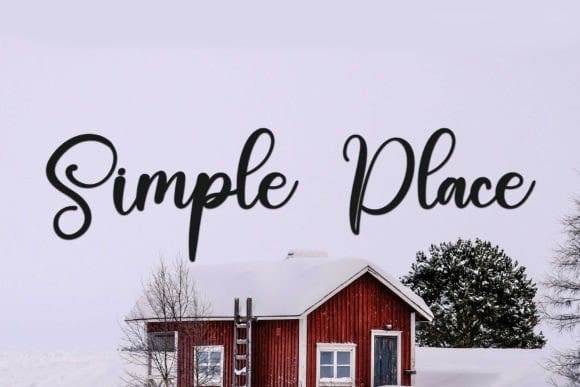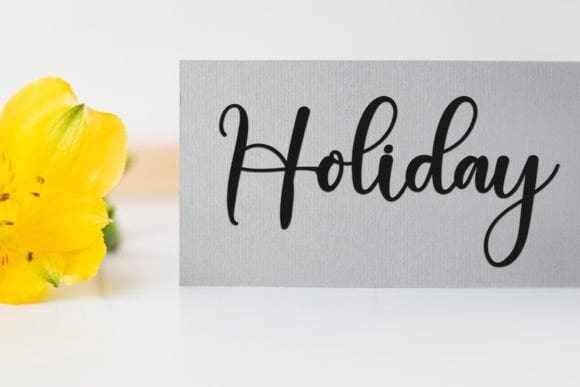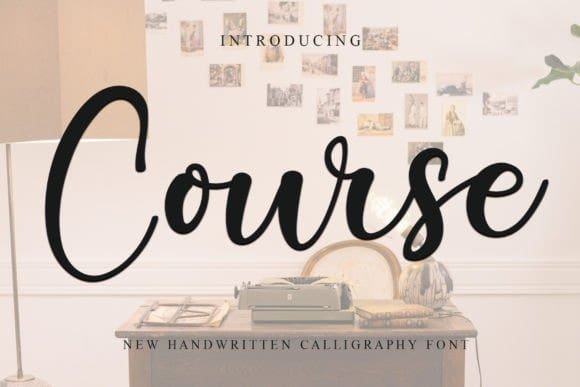
Course Script Font
Course Script Font is an enchanting handwritten font. This versatile script font has a wide spectrum of applications ranging from greeting cards to headlines and is guaranteed to add a romantic feel to your next project.